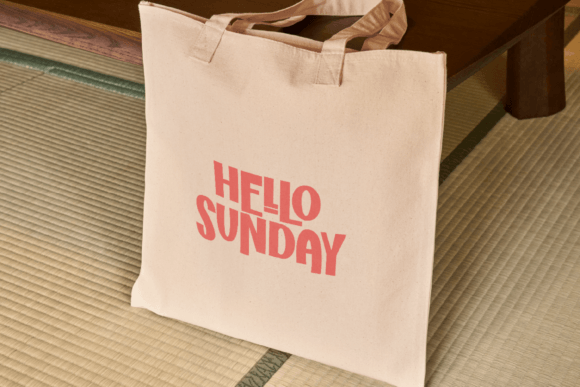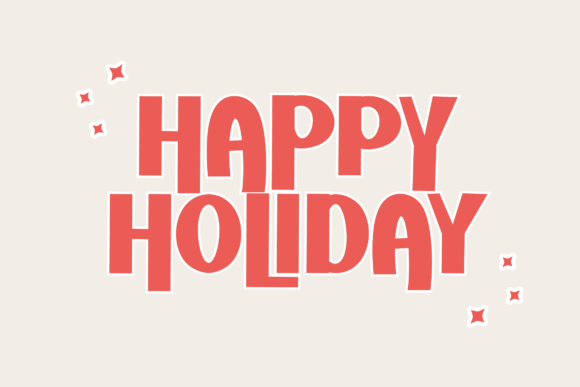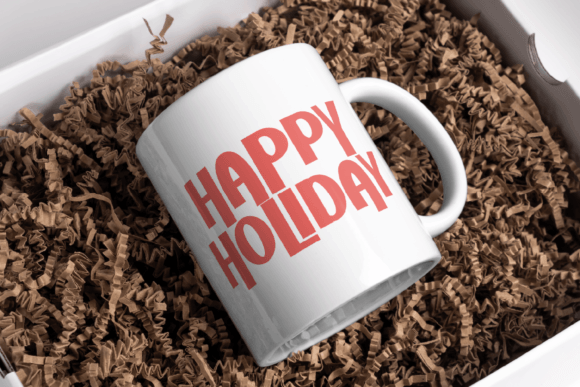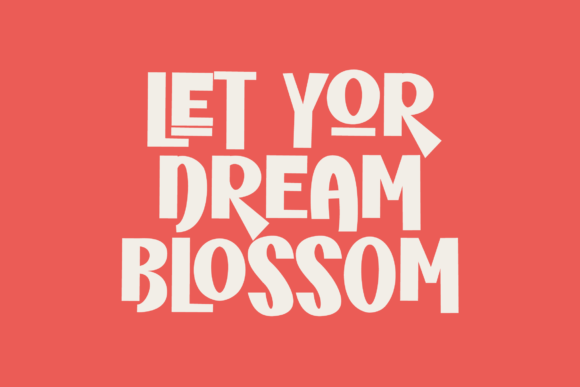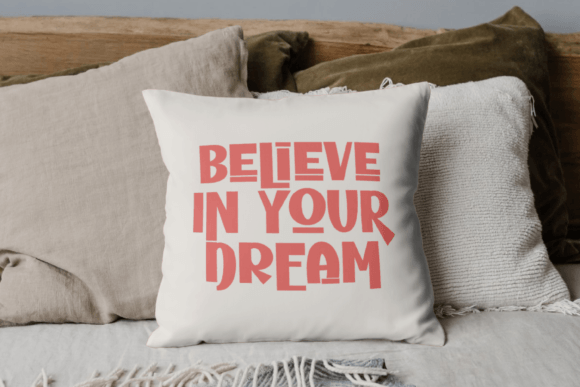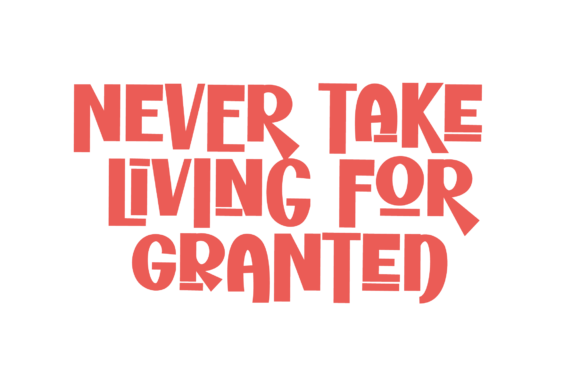
Unleash Your Creativity with Harena Font: The Ultimate Playful Display Font
Are you a designer, craftsperson, or creative enthusiast looking for a font that embodies playfulness and charm? Look no further than Harena Font, a lively and engaging display font designed to bring your creative visions to life. In this article, we’ll dive into the world of Harena Font, exploring its features, benefits, and uses, and discover why it’s the perfect companion for your logos, branding ventures, posters, and design creations.
Introducing Harena Font: A Playful Display Font
Harena Font is a carefully crafted display font that exudes playfulness and creativity. Its lively and engaging character makes it an ideal choice for designers and crafters seeking to add a touch of whimsy to their designs. Whether you’re working on a logo, branding project, poster, or any other design creation, Harena Font is sure to make a lasting impression.
The Versatility of Harena Font
One of the standout features of Harena Font is its versatility. This font is designed to enhance and define the spirit of any design project, making it a valuable addition to your font library. With Harena Font, you can:
The Benefits of Using Harena Font
So, why choose Harena Font for your design projects? Here are just a few benefits of using this amazing font:
- Unique and playful character: Harena Font adds a touch of whimsy to your designs, setting them apart from the crowd
- Highly versatile: Use Harena Font across a range of design projects, from logos and branding to posters and packaging
- Easy to read: Despite its playful nature, Harena Font remains clear and easy to read, making it perfect for use in a variety of contexts
Transform Your Creative Vision into a Visual Reality
Harena Font is more than just a font – it’s a tool for bringing your creative visions to life. With its playful and charming character, this font has the power to transform your design projects into visually stunning and engaging creations. Whether you’re a seasoned designer or a craftsperson just starting out, Harena Font is the perfect companion for your creative journey.
In conclusion, Harena Font is a playful display font that embodies creativity and self-expression. Its lively and engaging character makes it perfect for a range of design projects, from logos and branding to posters and packaging. With its versatility, ease of use, and customizable nature, Harena Font is an essential addition to any designer’s or craftsperson’s toolkit. So why wait? Embrace your creativity and unleash the charm and playfulness of Harena Font today!